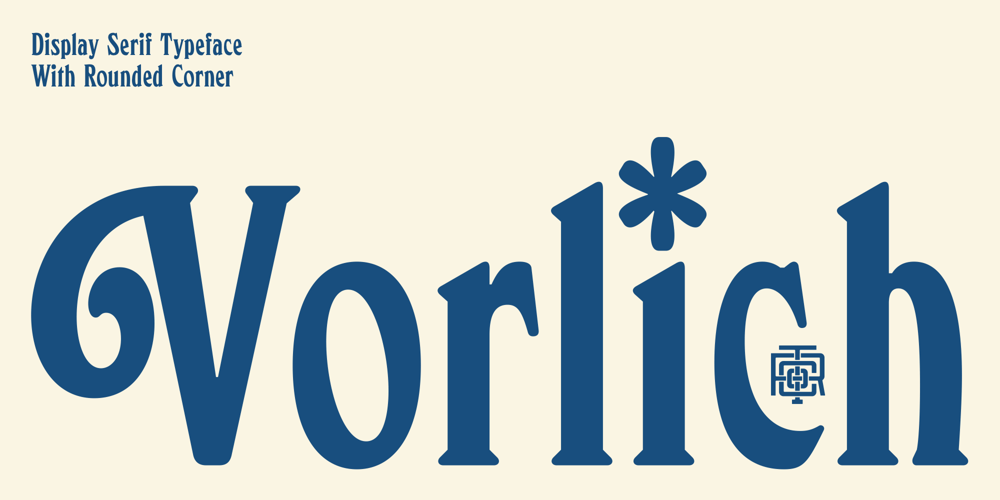
RTCO Vorlich Font Family was designed by Abdul Rochman and published by Roams Type Co. RTCO Vorlich contains 1 styles and family package options. Classy Serif condensed display typeface with & rounded corner. Inspired by vintage sign and logotype of advertising branding. This font is suitable for graphic designs such as logotypes, merchandise, printed stickers, and other branding needs.Include:Uppercase & Lowercase | Numerals & Punctuation | Ligatures | Multilanguage support